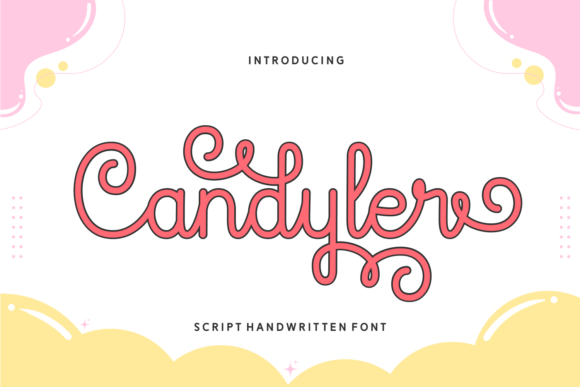
Candyler Font: The Sweetest Addition to Your Design Projects
In the world of typography, fonts play a crucial role in conveying the tone and personality of a brand or design project. When it comes to creating a fun and playful vibe, the right font can make all the difference. That’s where Candyler font comes in – a delightful, handwritten script font that’s sure to add a dash of sweetness to your designs. In this article, we’ll dive into the world of Candyler, exploring its features, uses, and benefits, as well as providing tips on how to make the most of this charming font.
What is Candyler Font?
Candyler is a playful and whimsical script handwritten font with a bold, bubbly charm. Its fun loops, swirly terminals, and thick outline make it the perfect choice for candy-themed projects, children’s content, branding, packaging, and anything that needs a joyful, eye-catching look. With Candyler, you can add a touch of personality and whimsy to your designs, making them stand out from the crowd.
Key Features of Candyler Font
- Playful and Whimsical: Candyler’s hand-drawn design gives it a carefree and lively feel, perfect for designs that need a playful touch.
- Bold and Bubbly: The font’s bold outline and bubbly charm make it perfect for headlines, titles, and other attention-grabbing elements.
- Fun Loops and Swirly Terminals: Candyler’s unique loops and terminals add a touch of whimsy and personality to your designs.
- Thick Outline: The font’s thick outline makes it perfect for use on a variety of backgrounds and in different design applications.
Uses for Candyler Font
Candyler’s versatility makes it suitable for a wide range of design projects, including:
- Candy-Themed Projects: Create eye-catching packaging, branding, and advertising materials for candy and sweet treats.
- Children’s Content: Use Candyler to create engaging and fun content for kids, such as children’s books, educational materials, and games.
- Branding and Packaging: Add a touch of personality to your brand’s packaging and marketing materials with Candyler’s playful and whimsical design.
- Social Media Graphics: Create eye-catching social media graphics, such as Facebook posts, Instagram stories, and Twitter headers, with Candyler’s bold and bubbly charm.
Benefits of Using Candyler Font
So, why choose Candyler font for your design projects? Here are just a few benefits:
- Unique and Eye-Catching: Candyler’s playful and whimsical design makes it perfect for grabbing attention and standing out from the crowd.
- Versatile: The font’s versatility makes it suitable for a wide range of design projects and applications.
- Easy to Read: Despite its playful design, Candyler is easy to read, making it perfect for use in body text and other applications where legibility is key.
- Customizable: With its thick outline and bold design, Candyler is easy to customize and modify to fit your design needs.
Tips for Using Candyler Font
To get the most out of Candyler font, here are a few tips to keep in mind:
- Use it Sparingly: While Candyler is a fun and playful font, it can be overwhelming if used excessively. Use it sparingly to add a touch of personality to your designs.
- Pair it with Other Fonts: Candyler pairs well with a variety of fonts, including sans-serif and serif fonts. Experiment with different pairings to find the perfect combination for your design.
- Experiment with Colors: Candyler’s bold and bubbly design makes it perfect for use with bright and bold colors. Experiment with different color combinations to find the perfect fit for your design.
- Pay Attention to Legibility: While Candyler is easy to read, it’s still important to pay attention to legibility. Make sure to adjust the font size and style as needed to ensure your text is easy to read.
Candyler font is a playful and whimsical script handwritten font that’s perfect for adding a touch of sweetness to your design projects. With its bold and bubbly charm, fun loops and swirly terminals, and thick outline, Candyler is sure to grab attention and add personality to your designs. Whether you’re working on a candy-themed project, children’s content, branding, packaging, or social media graphics, Candyler is a versatile and eye-catching font that’s sure to deliver sweet vibes and personality in every curve.